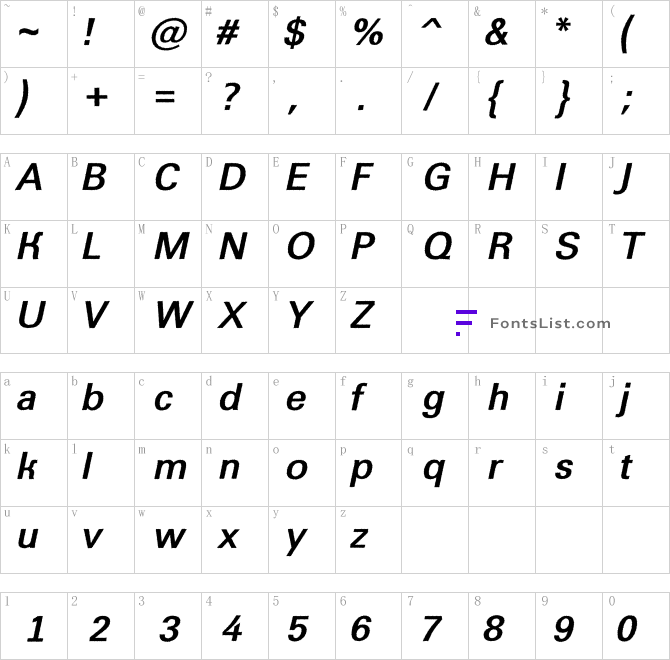
- Font Name:a_GroticRoughObl
a_GroticRoughObl-Bold.ttf is a very beautiful artistic font, a_GroticRoughObl-Bold.ttf is widely used in the design and printing of various books and pictures,a_GroticRoughObl-Bold.ttf has a strong visual impact,a_GroticRoughObl-Bold.ttf is a commonly used font in newspapers, magazines and books, and is used in posters, e-commerce Poster design, store design, logo design, font design and other fields.a_GroticRoughObl-Bold.